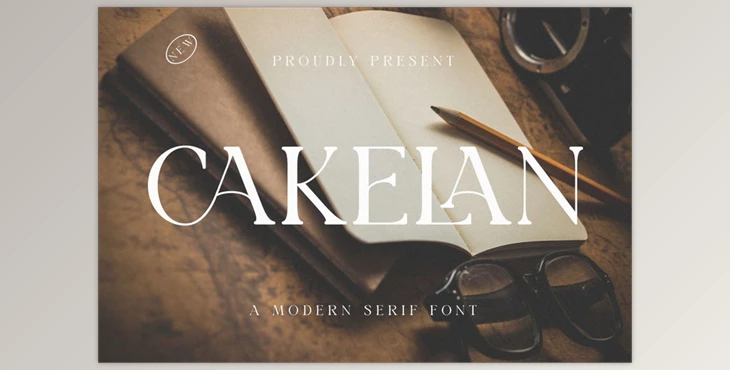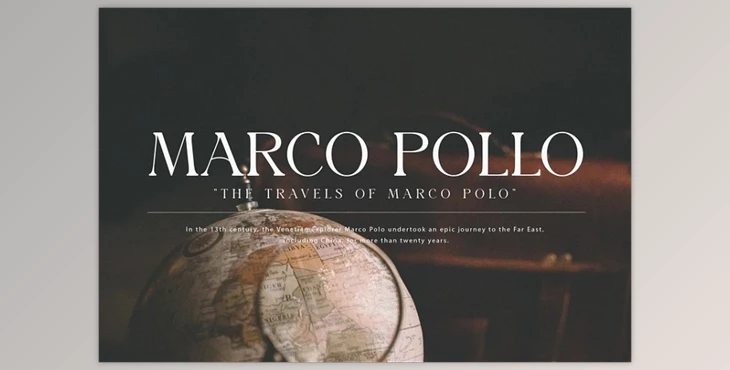
CAKELAN Serif Typeface is a sophisticated and contemporary font designed by Muflihin Nurhabib. With its elegant and minimalistic style, CAKELAN brings a luxurious and clean aesthetic to diverse projects such as websites, logos, branding, social media quotes, and wedding stationery.
Its meticulously crafted capital letters from A to Z exude uniqueness and class, making it versatile for various large-scale design projects. Elevate your designs with the refined and modern charm of CAKELAN.